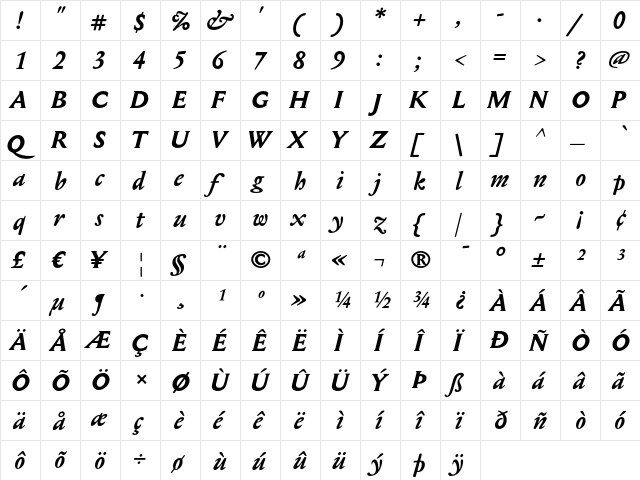
Mediaeval Bold Italic Font Preview
Mediaeval Bold Italic
Mediaeval Bold Italic Font Details
Design Context for Mediaeval Typeface
Mediaeval offers clean, dependable letterforms without strong stylistic allegiance, making it a practical choice for designers who need flexibility. The dynamic lean of this cut emphasises speed and emphasis in any layout. The heavy weight commands attention and anchors typographic hierarchies.
Pro Tip: Use Mediaeval for emphasis, pull quotes, and subheadings where its slanted energy can add rhythm to the layout.